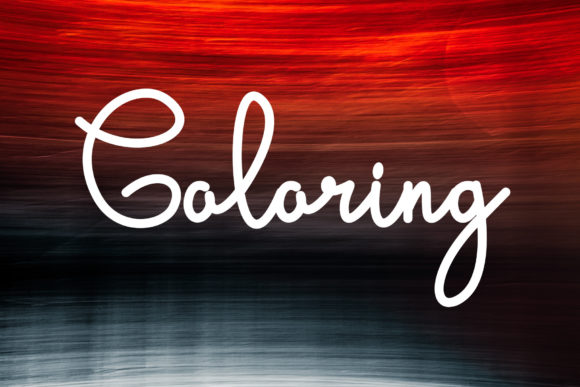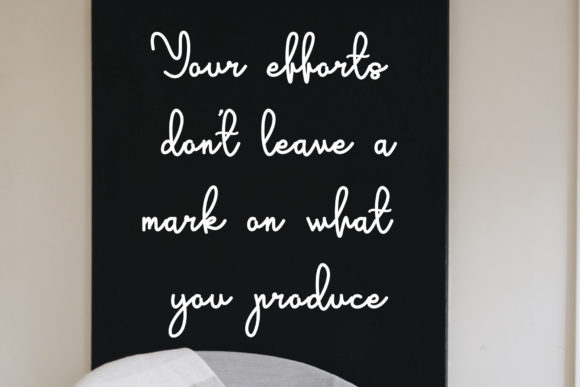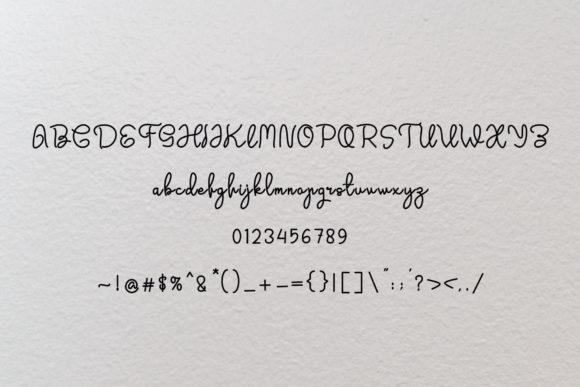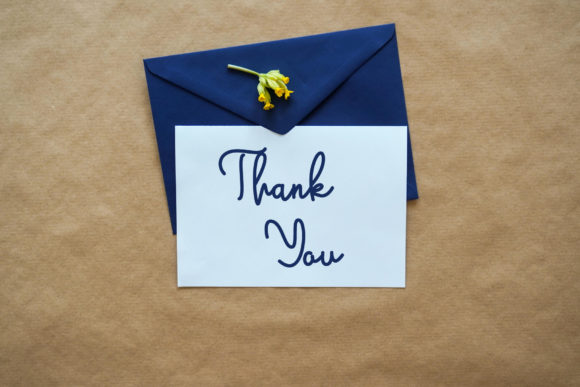
Introducing Five Nails Font: The Sweet and Delicate Handwritten Font for Romantic Designs
Are you a designer or crafter looking for a font that can add a touch of romance and personalization to your designs? Look no further than Five Nails Font! This sweet and delicate handwritten font is perfect for creating beautiful wedding invitations, cards, and other designs that require a dainty and joyful touch.
What Makes Five Nails Font Special?
Five Nails Font is a unique and charming font that is sure to capture the hearts of anyone who sees it. Its delicate and handwritten style makes it perfect for designs that require a personal and romantic touch. The font is designed to be easy to read and understand, making it perfect for use in a variety of designs, from wedding invitations to social media graphics.
One of the things that sets Five Nails Font apart from other fonts is its versatility. It can be used in a variety of designs, from formal wedding invitations to casual social media graphics. The font is also highly legible, making it perfect for use in designs that require a lot of text.
Five Nails Font is perfect for creating beautiful wedding invitations and cards. The font’s delicate and romantic style makes it ideal for use in wedding designs, and its ease of use makes it perfect for designers of all skill levels. Whether you’re creating a formal wedding invitation or a casual save-the-date card, Five Nails Font is the perfect choice.
In addition to wedding invitations and cards, Five Nails Font can also be used to create other romantic designs, such as Valentine’s Day cards and anniversary gifts. The font’s versatility and charm make it perfect for any design that requires a personal and romantic touch.
Why Designers and Crafters Love Five Nails Font
Designers and crafters love Five Nails Font for a variety of reasons. Here are just a few:
• Unique and charming style: Five Nails Font has a unique and charming style that sets it apart from other fonts. Its delicate and handwritten style makes it perfect for designs that require a personal and romantic touch.
• Versatility: Five Nails Font is highly versatile and can be used in a variety of designs, from formal wedding invitations to casual social media graphics.
• Highly legible: Five Nails Font is highly legible, making it perfect for use in designs that require a lot of text.
Five Nails Font is a sweet and delicate handwritten font that is perfect for creating romantic and personalized designs. Its unique and charming style makes it perfect for use in wedding invitations, cards, and other designs that require a dainty and joyful touch. With its ease of use, versatility, and high legibility, Five Nails Font is a must-have for designers and crafters of all skill levels.